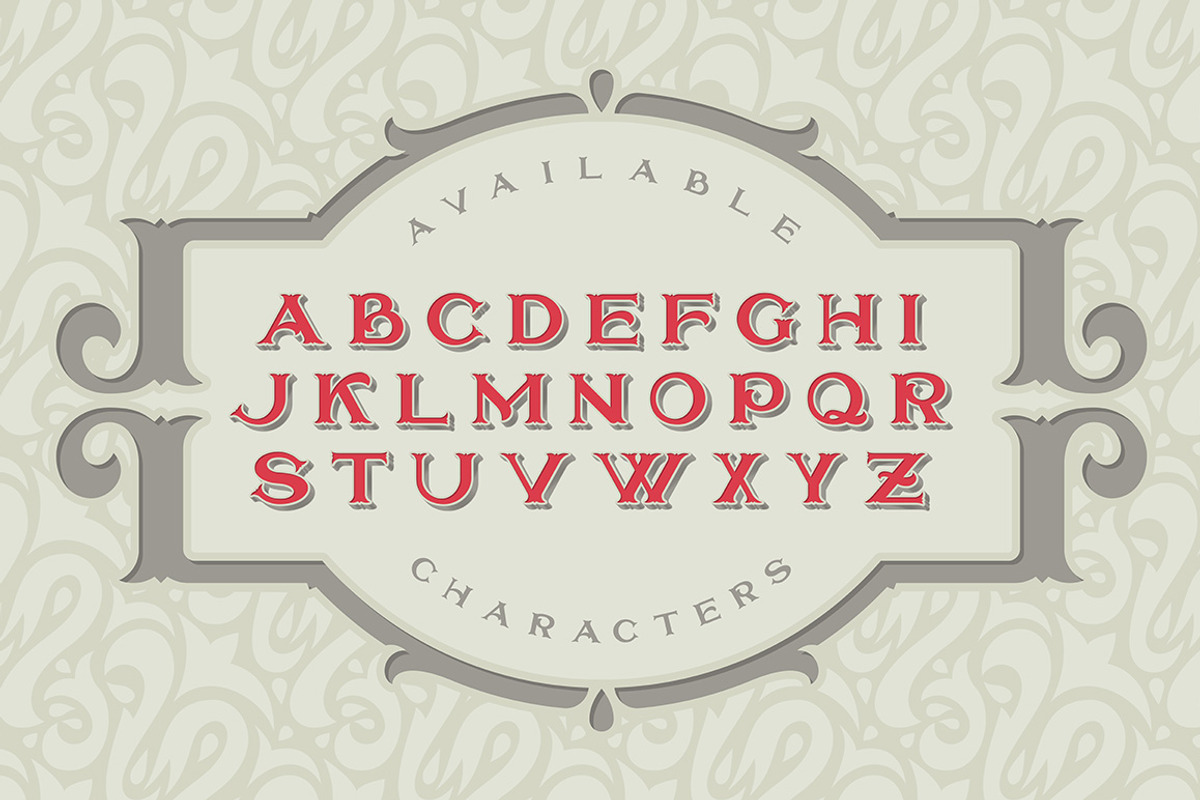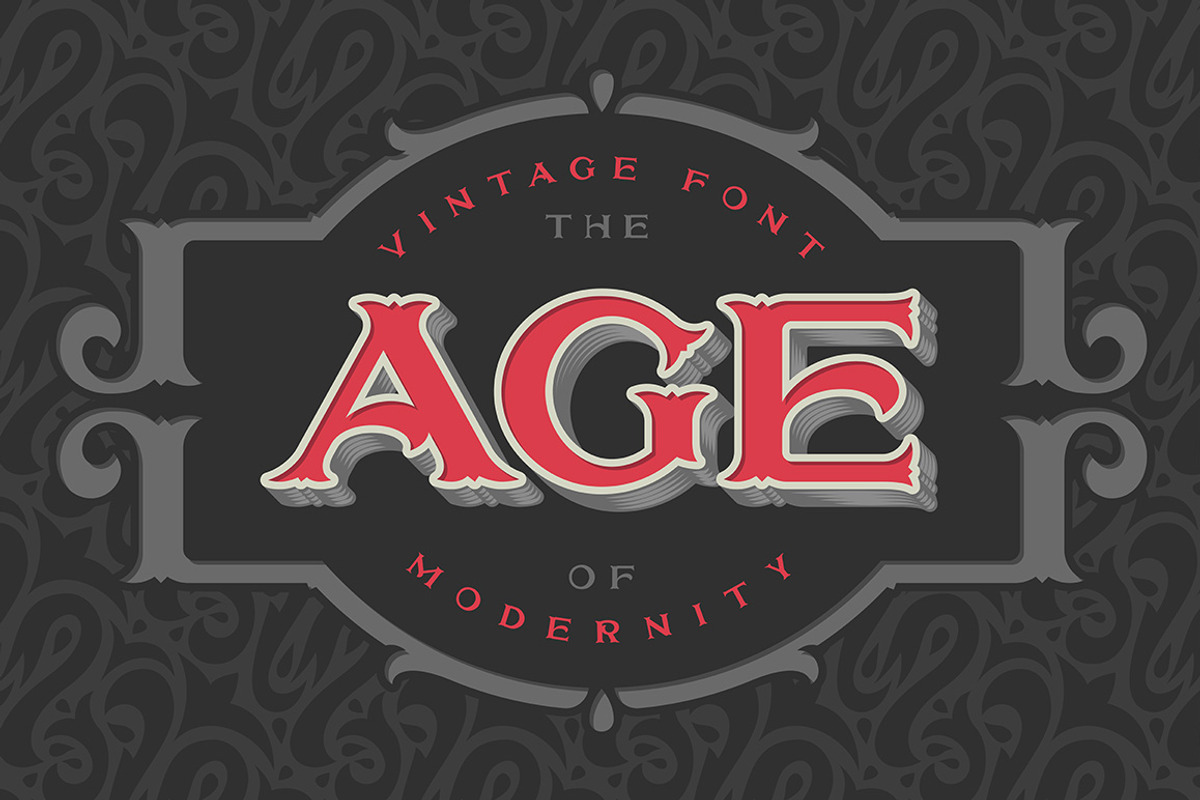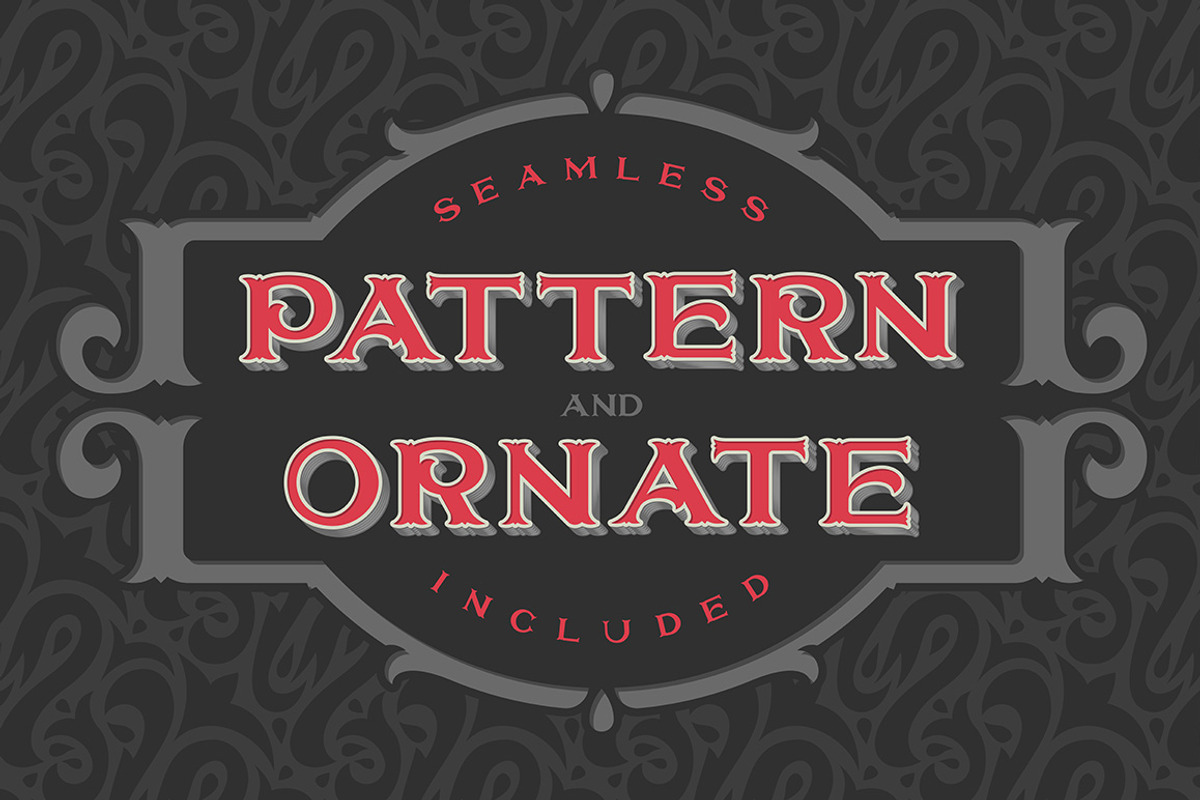
VIntage font "The age of modernity"
VIntage font "The age of modernity" by Gleb Guralnyk is a font selected for branding, posters, packaging, typography.
Note: Font contains ONLY big latin letters (no small letters, digits or other glyphs).
Why VIntage font "The age of modernity" is worth a look
VIntage font "The age of modernity" by Gleb Guralnyk fits naturally into Branding, posters, packaging, typography.